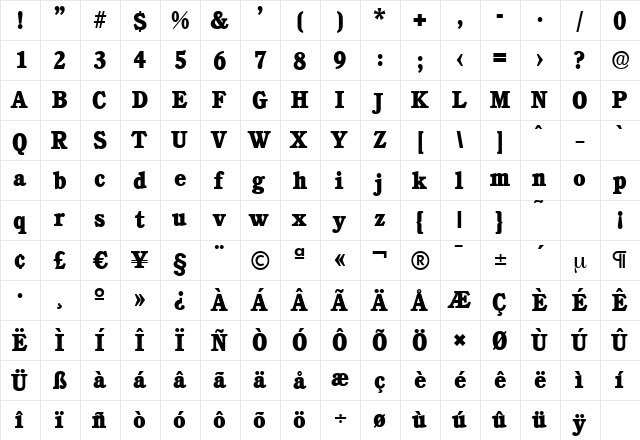
CalgarySerial-Xbold Regular
Design Context for CalgarySerial-Xbold Typeface
CalgarySerial-Xbold offers clean, dependable letterforms without strong stylistic allegiance, making it a practical choice for designers who need flexibility. The heavy weight commands attention and anchors typographic hierarchies.